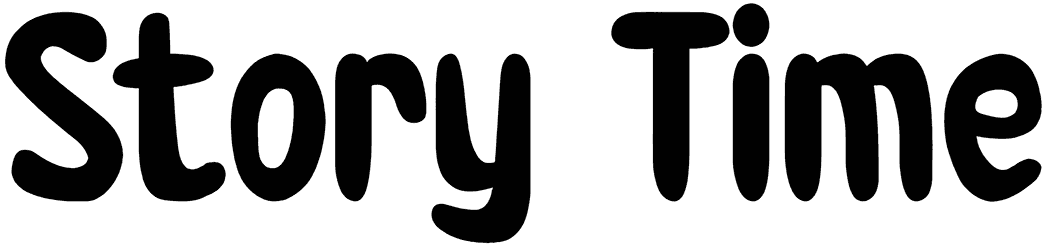
Storytime Font
If you want a cartoon font to make your design look happier yet smart, Storytime might be what you expect. The bold, smooth texture combines with extra playfulness to create a fun, eye-catching design that entertains your audience. You can use this font for comedy movies, children’s storybooks, T-shirt prints, animation titles, and birthday invitations.